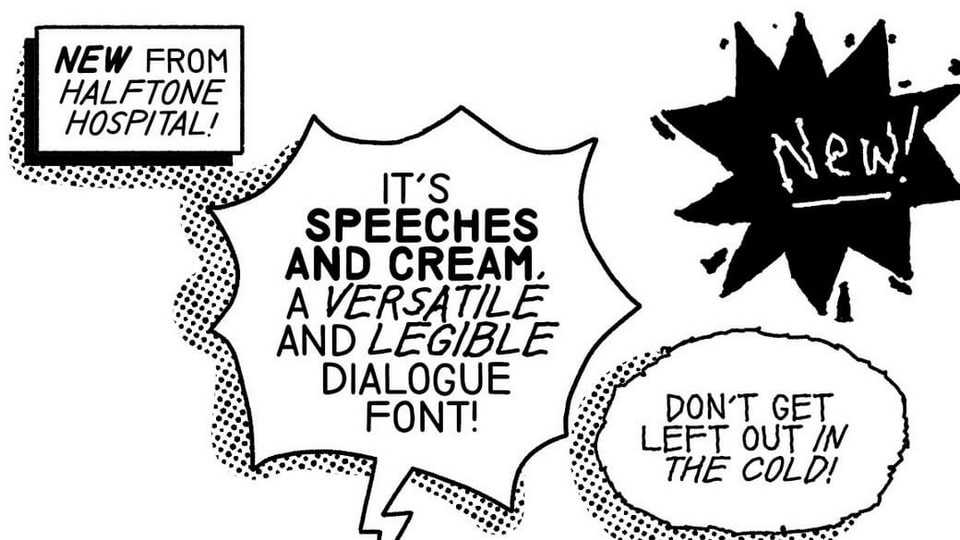
Download Speeches and Cream font, a dialogue typeface, tailored to be legible at small sizes and loosely based on web standard fonts like Roboto, Open Sans, and Arial. Some of the weights and styles get quite derivative, so try them out and you may find a style that you like more than plum standard “Regular”.
Designer: Halftone Hospital